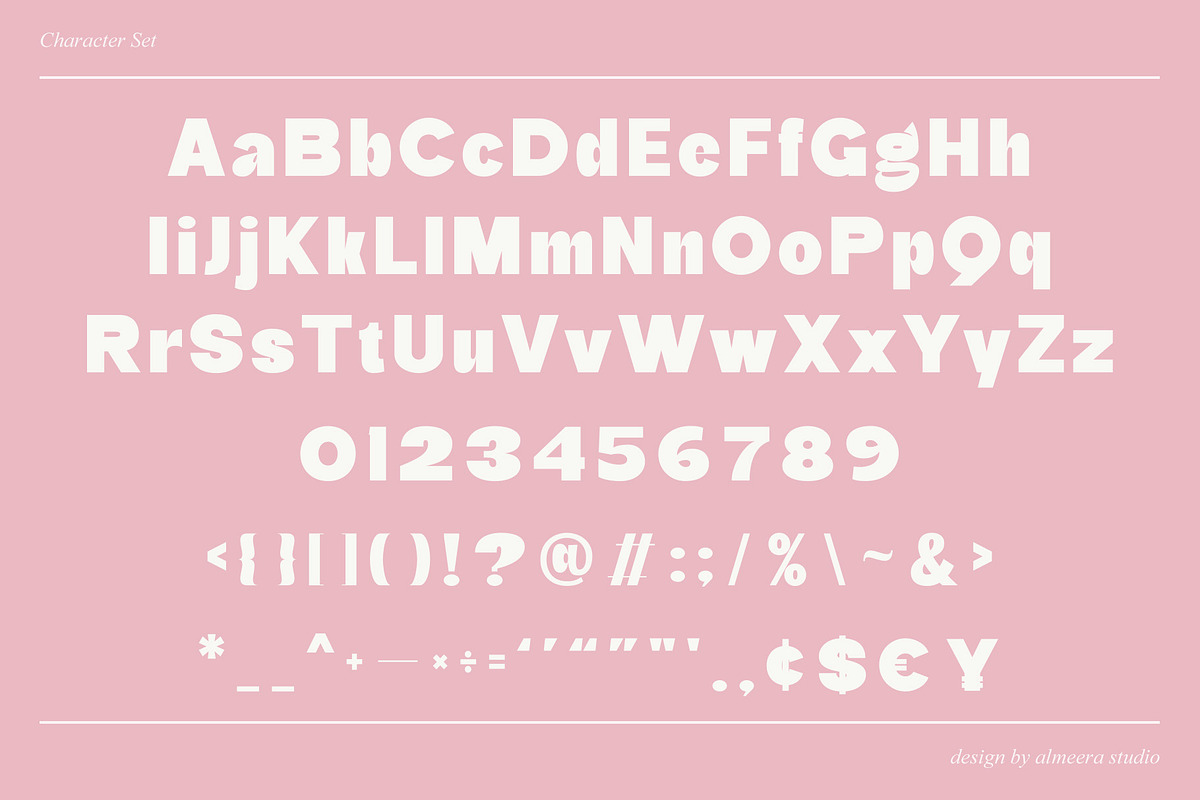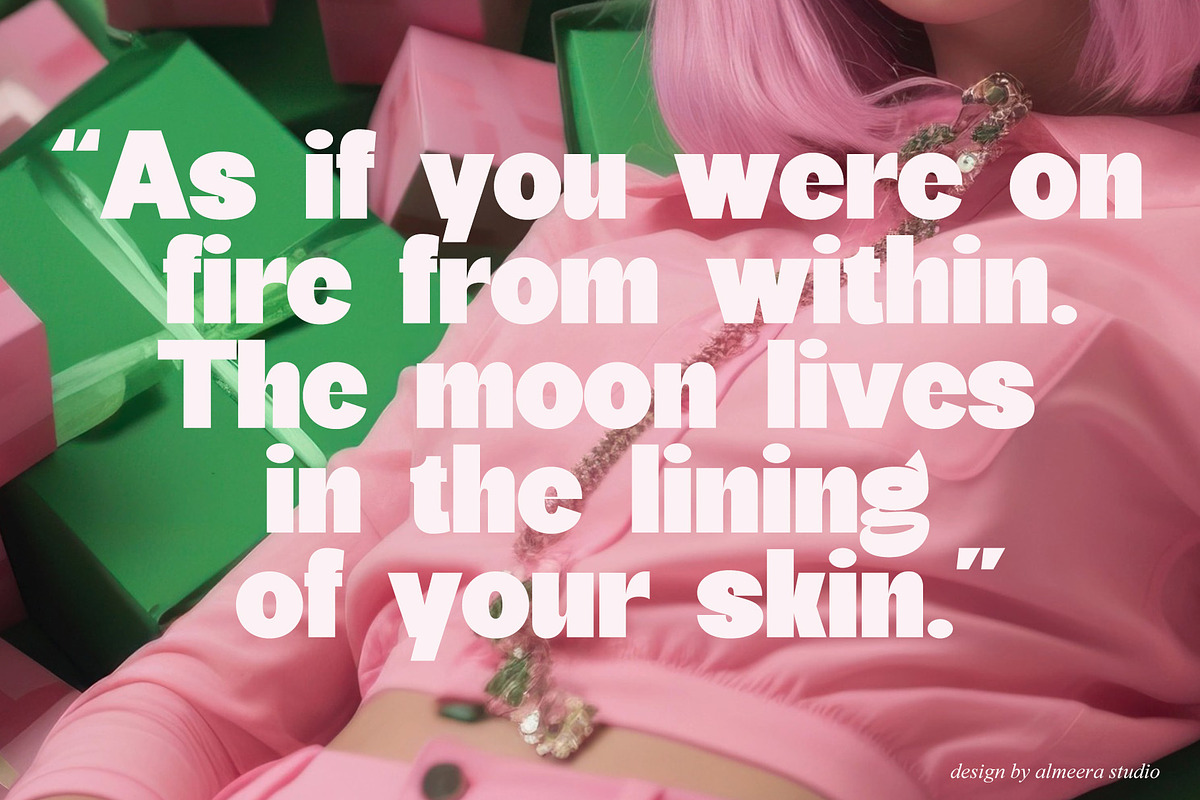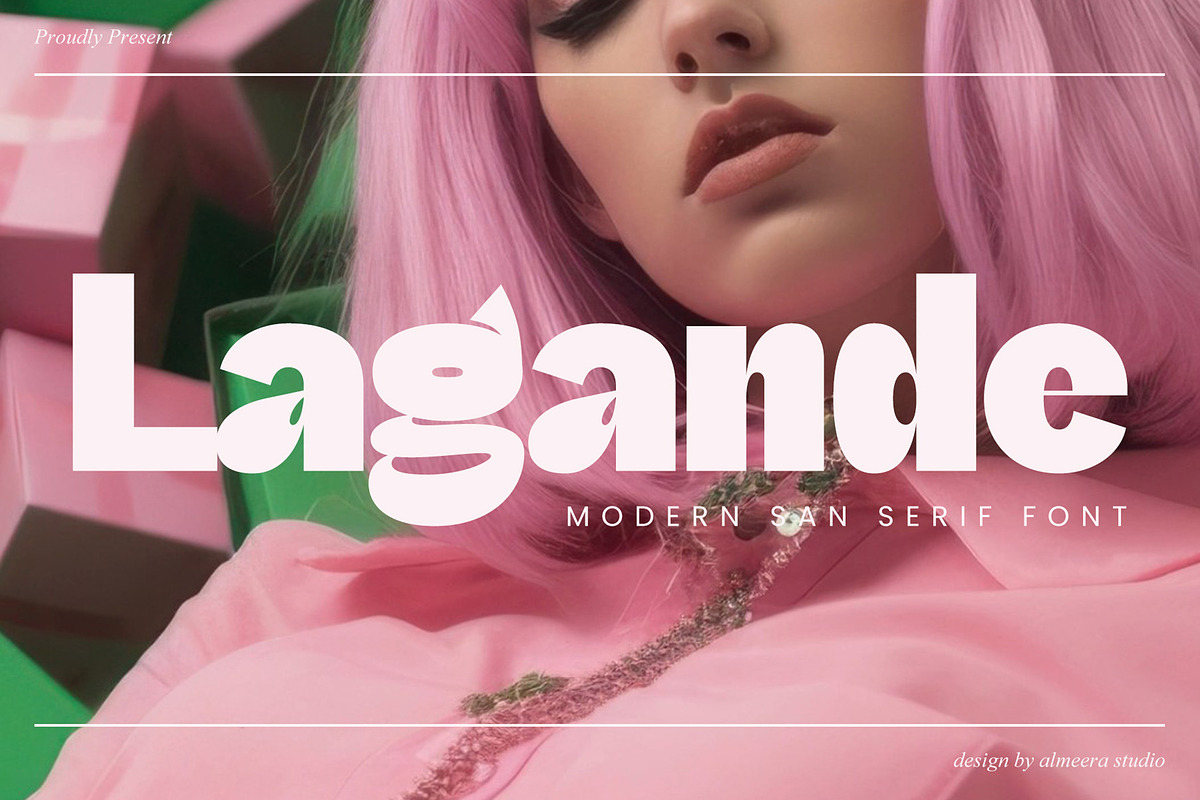
Lagande - Modern Sans
Introducing Lagande - Modern San Serif Font. Lagande is a display and simple san serif font, This type of font is very suitable for your various needs such as branding projects, logos, social media posts, advertisements, labels, product packaging, photography, wedding designs, watermarks, invitation product designs, stationery, and any project.